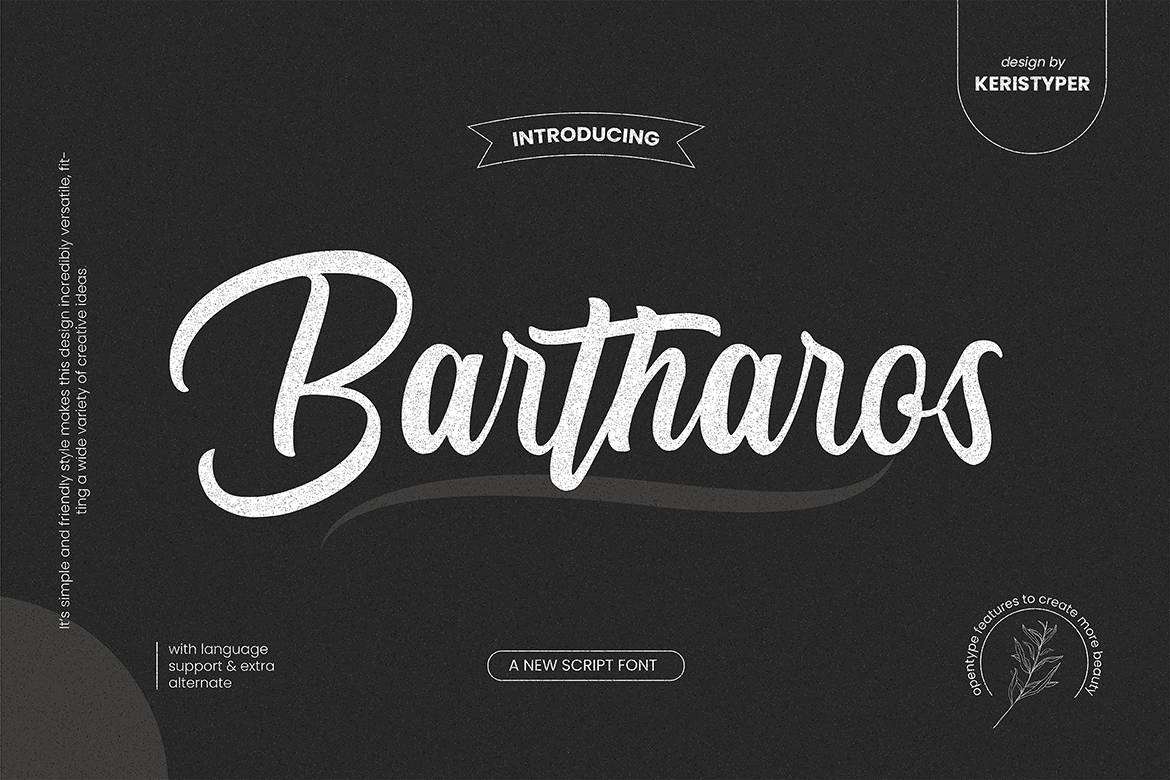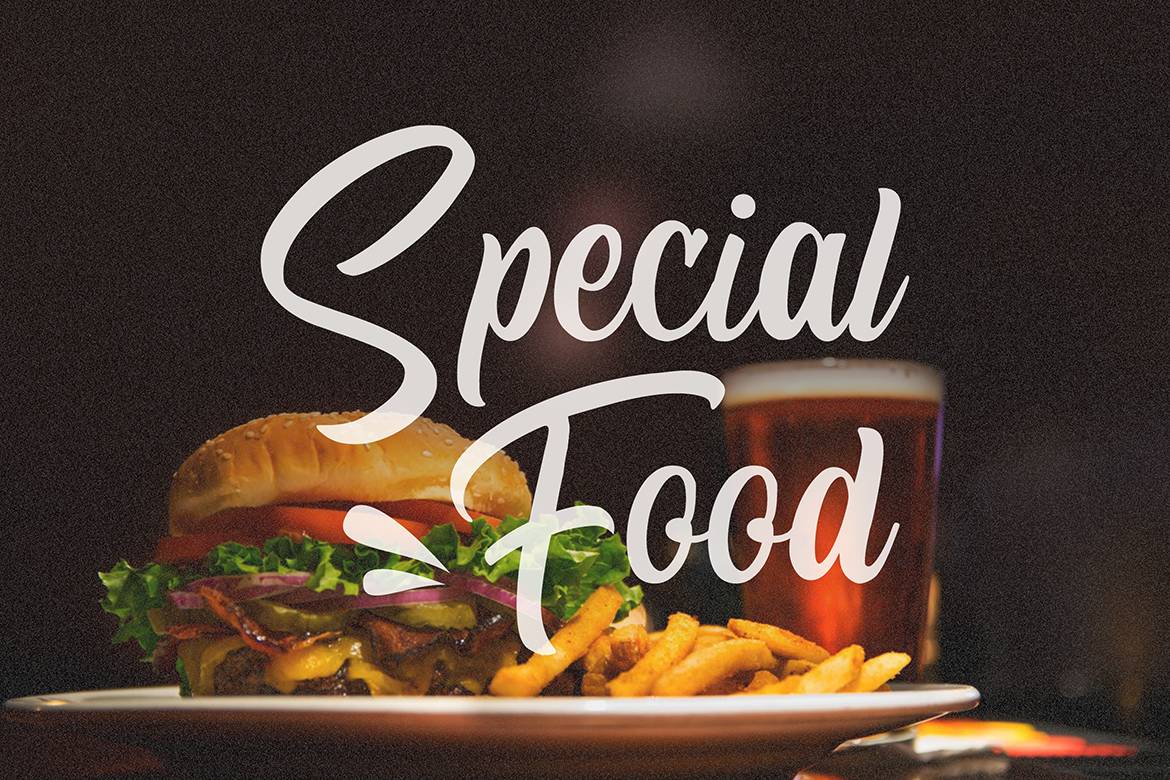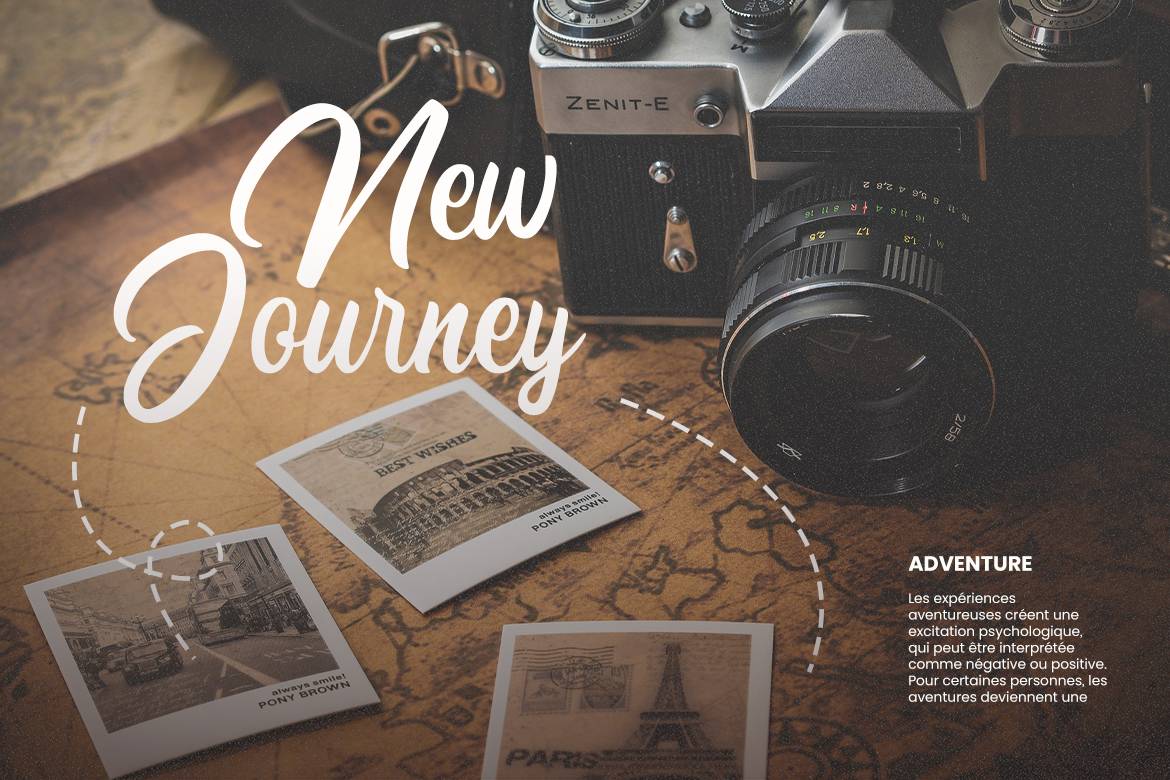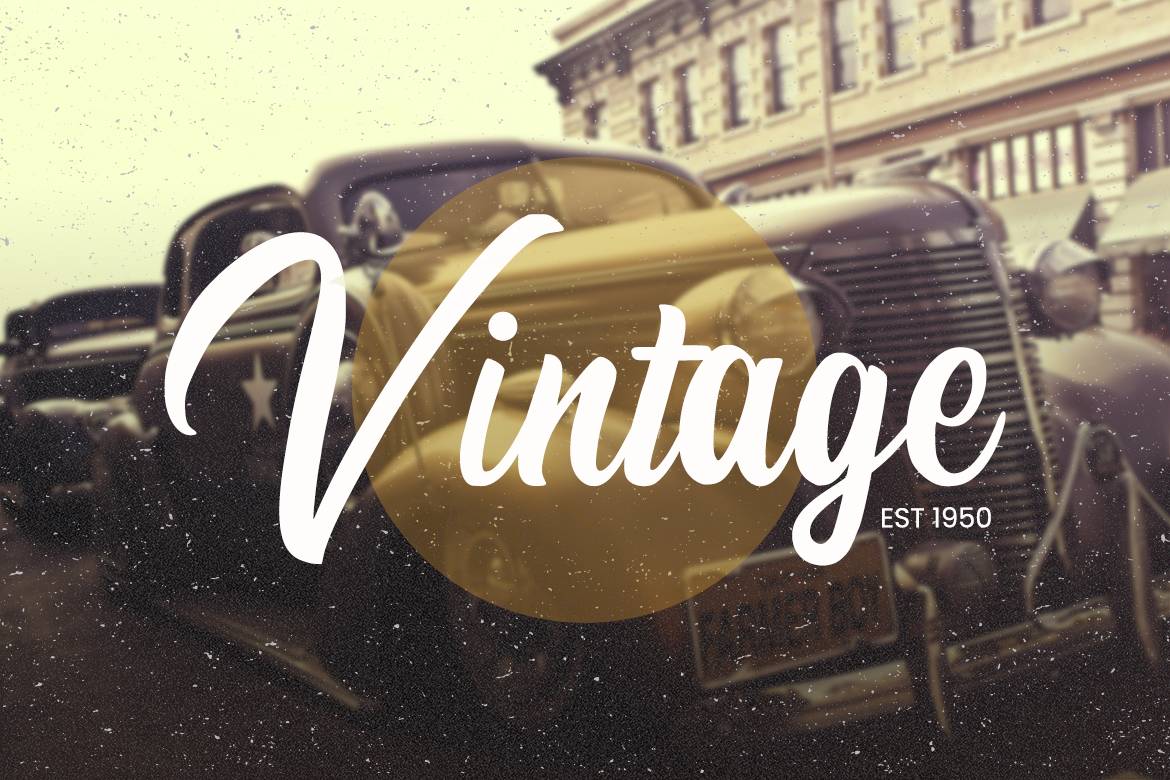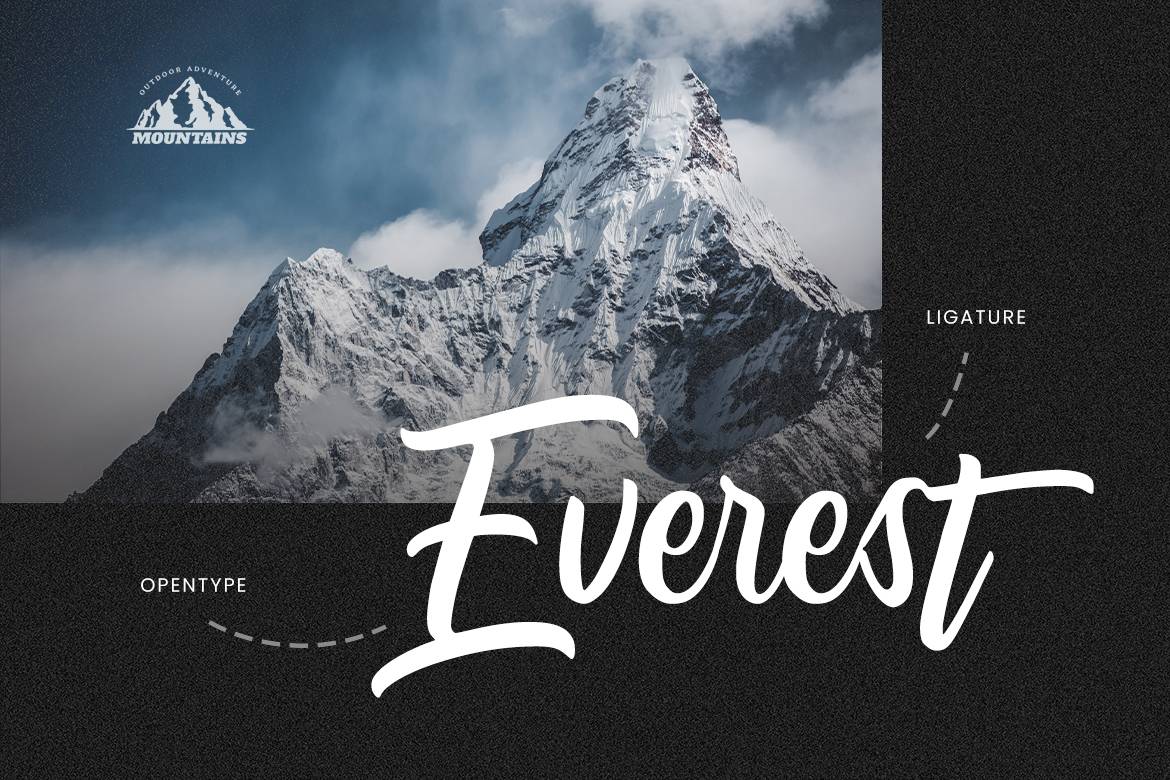
Bartharos is a stylish script font with a smooth, flowing character that combines elegance and readability. Its medium weight and balanced contrast give it a friendly yet refined personality, making it perfect for branding, invitations, and headlines that seek a touch of sophistication without sacrificing warmth. This font works especially well in creative and lifestyle contexts where a handwritten, approachable feel is desired.
Bartharos Font
About Bartharos Font
| Font family | Bartharos Font |
| Designer | Tezar Tantular |